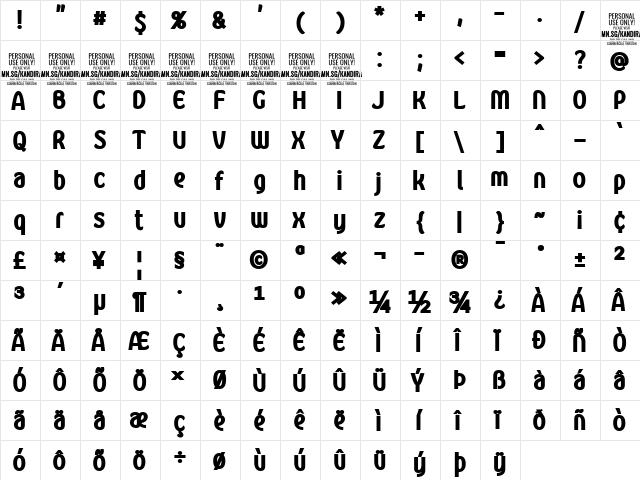
Kandira PERSONAL ExtraBlack
| Style | ExtraBlack |
| Foundry | Mans Greback |
| Designer | Mans Greback |
Design Context for Kandira PERSONAL Typeface
Kandira PERSONAL offers clean, dependable letterforms without strong stylistic allegiance, making it a practical choice for designers who need flexibility.